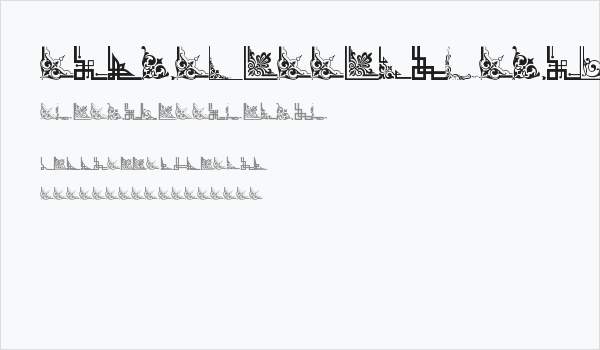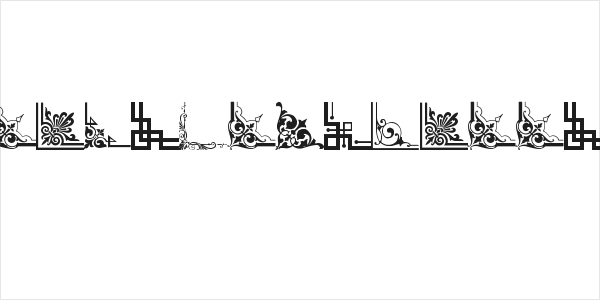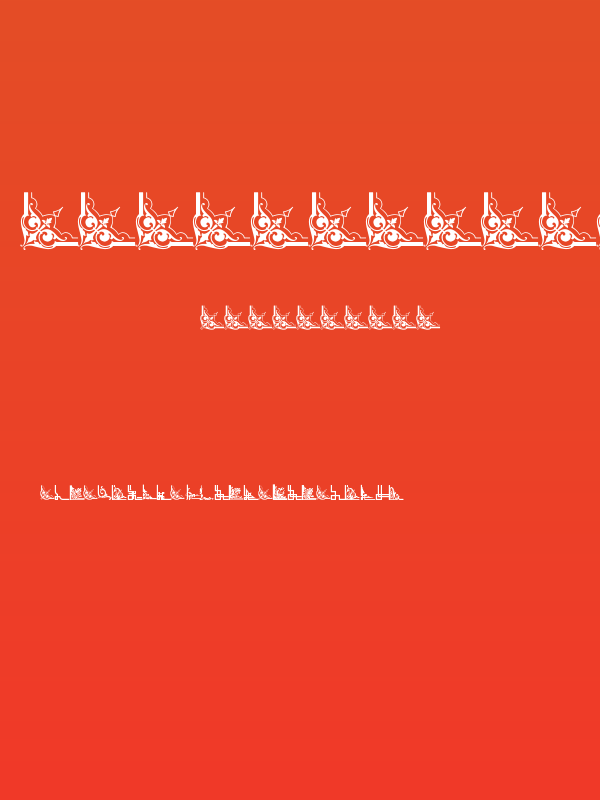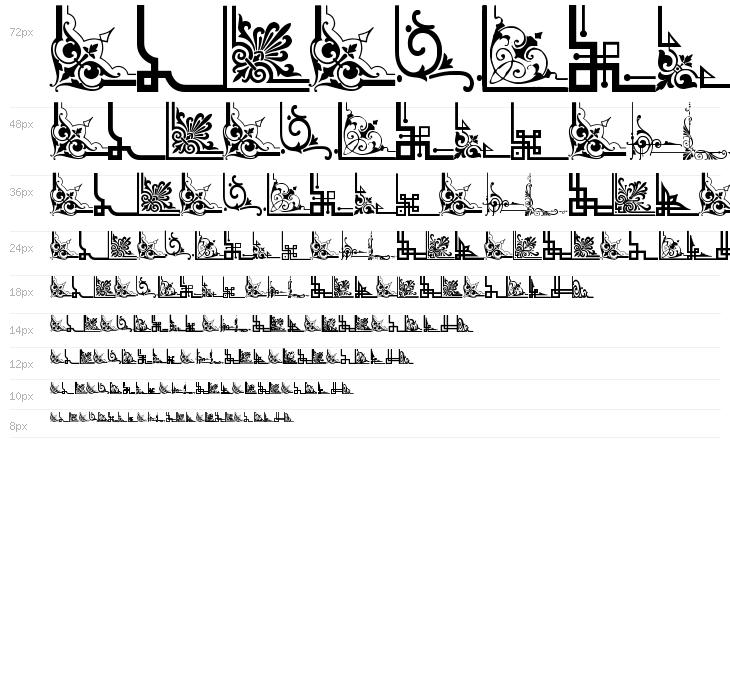
Vintage Decorative Corners 34 Font
Vintage Decorative Corners 34 Description
Highly decorative and ornate corner designs featuring intricate flourishes, geometric patterns, and floral motifs, presented in a repeating border style rather than traditional alphanumeric characters.
| Overall Style | Vintage, Decorative |
| Use Case | Borders, Frames, Decorative accents |
| Proposed Projects | Invitations, certificates, book covers, decorative borders, vintage-themed designs. |